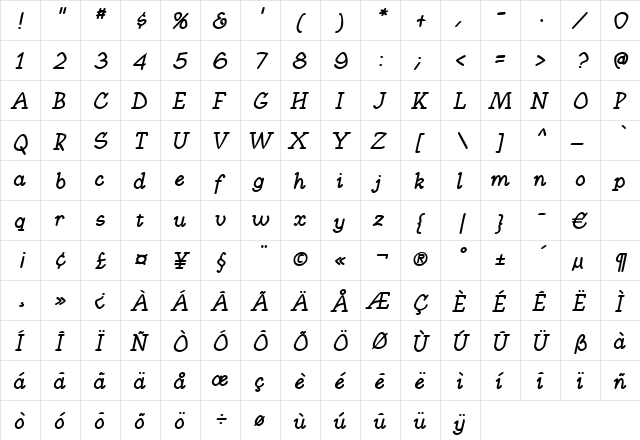
SundsvallBoldItalic Regular Font Preview
Design Context for SundsvallBoldItalic Typeface
SundsvallBoldItalic takes a measured approach to typography — its balanced proportions and neutral character make it a reliable workhorse for both digital and print work. The slanted form adds forward momentum and visual energy. The heavy weight commands attention and anchors typographic hierarchies.